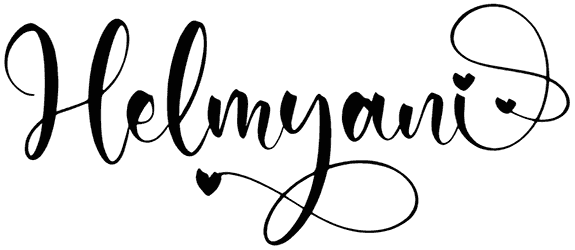
Helmyani Font
Introducing Helmyani, a casual, handmade Valentine font, gives an excellent aesthetic, modernity, and freshness from every corner. It connects letters with delicate swashes to create a wonderful experience that you will never forget. This font has all the characters, which makes it more versatile. It can be used for greeting cards, book covers, photo overlays, party invitations, branding material, etc.